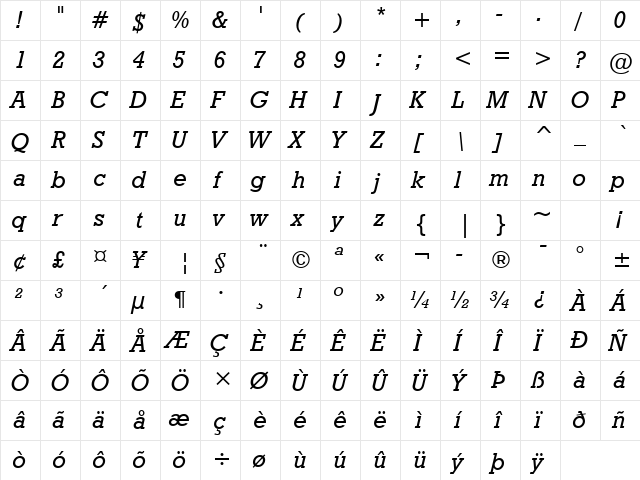
GeoSlb712 Md BT Medium Italic Font Preview
GeoSlb712 Md BT Medium Italic
Design Context for GeoSlb712 Md BT Typeface
GeoSlb712 Md BT takes a measured approach to typography — its balanced proportions and neutral character make it a reliable workhorse for both digital and print work. Its italic angle brings a sense of urgency and motion to the letterforms.
Pro Tip: Try GeoSlb712 Md BT for annotation and caption copy alongside an upright companion — the contrast in angle creates a dynamic but ordered typographic system.